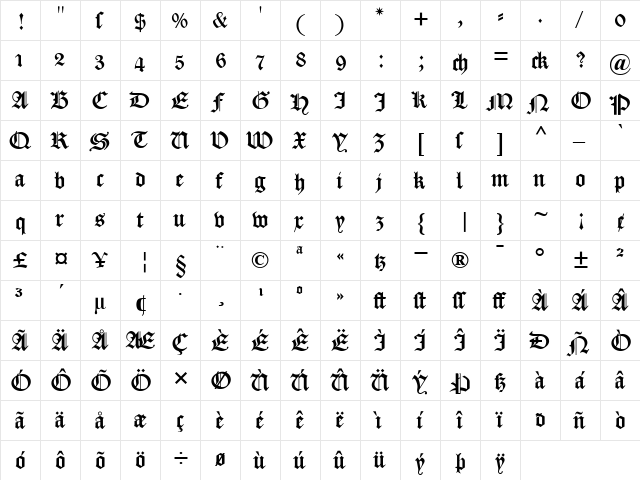
DS Caslon Gotisch OsF
| Foundry | by Typographer Mediengestaltung |
| Designer | William Caslon (1692-1766) |
Design Context for DS Caslon Gotisch Typeface
DS Caslon Gotisch takes a measured approach to typography — its balanced proportions and neutral character make it a reliable workhorse for both digital and print work.